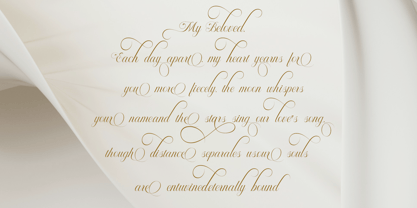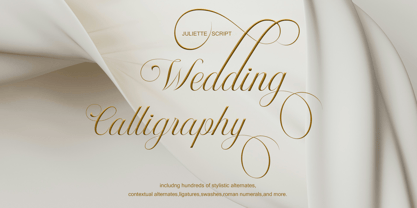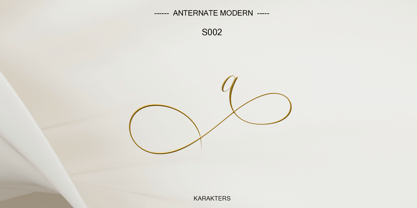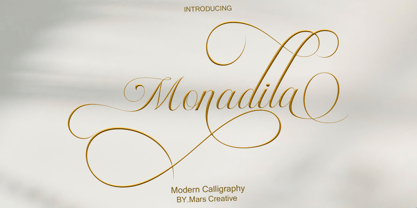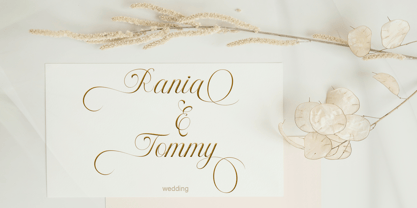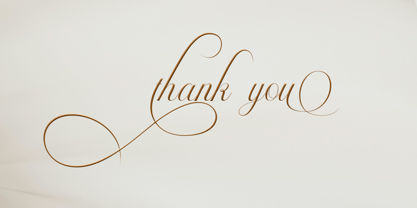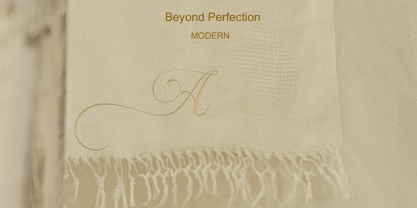
Monadila
by Mars Creative
The Monadila Font Family was designed by Al Muzammil and published by Mars Creative. Monadila contains 1 styles. More about this family
Monadila is a modern calligraphy font that combines timeless elegance with a luxurious contemporary style. Inspired by classic Copperplate lettering, this typeface features smooth flowing strokes, beautiful thick-to-thin contrasts, and graceful swashes that create a sophisticated and artistic appearance.
Designed with delicate details and refined curves, Monadila brings a sense of exclusivity, femininity, and charm to every design project. Its stylish ligatures and decorative alternates make it perfect for creating eye-catching typography with a premium aesthetic.
Designers: Al Muzammil
Current Foundry: Mars Creative